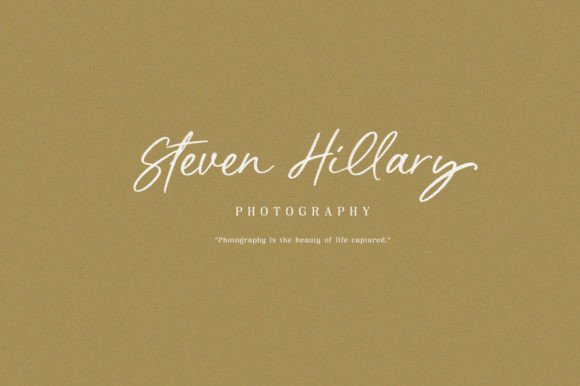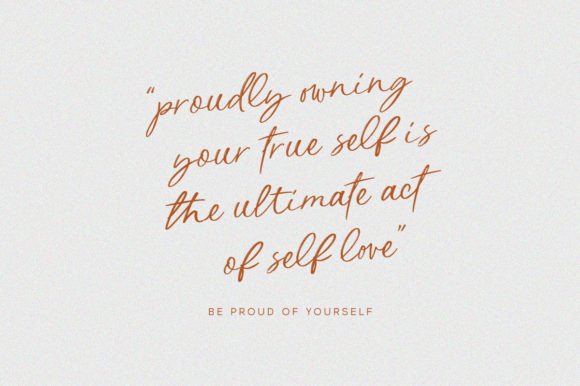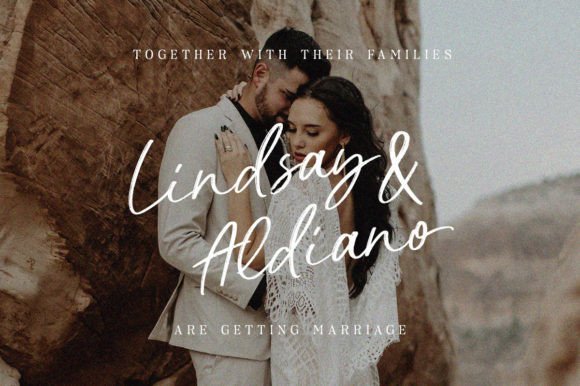
Aurelia Michelle Font
Meet Aurelia Michelle, the hand-drawn font that exudes effortless femininity and chic sophistication. With its brush texture and delicate curves, this font is perfect for adding a touch of elegance to any design project.